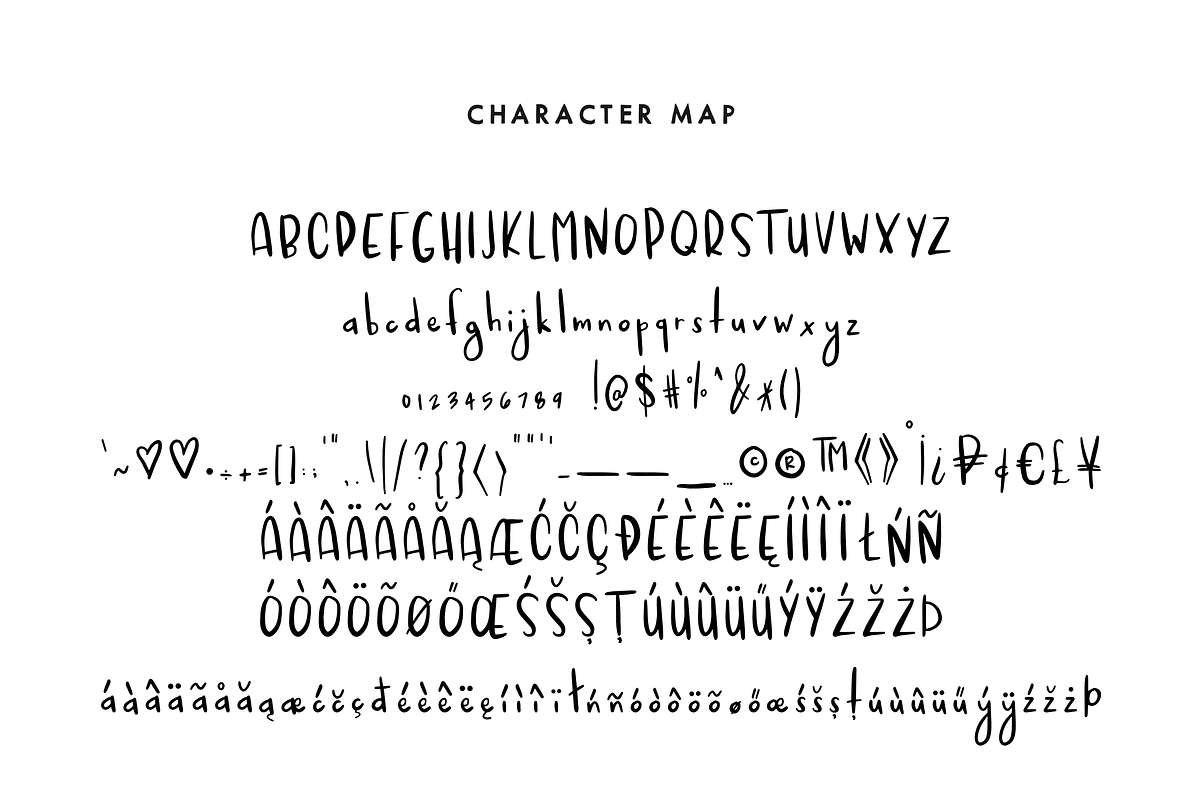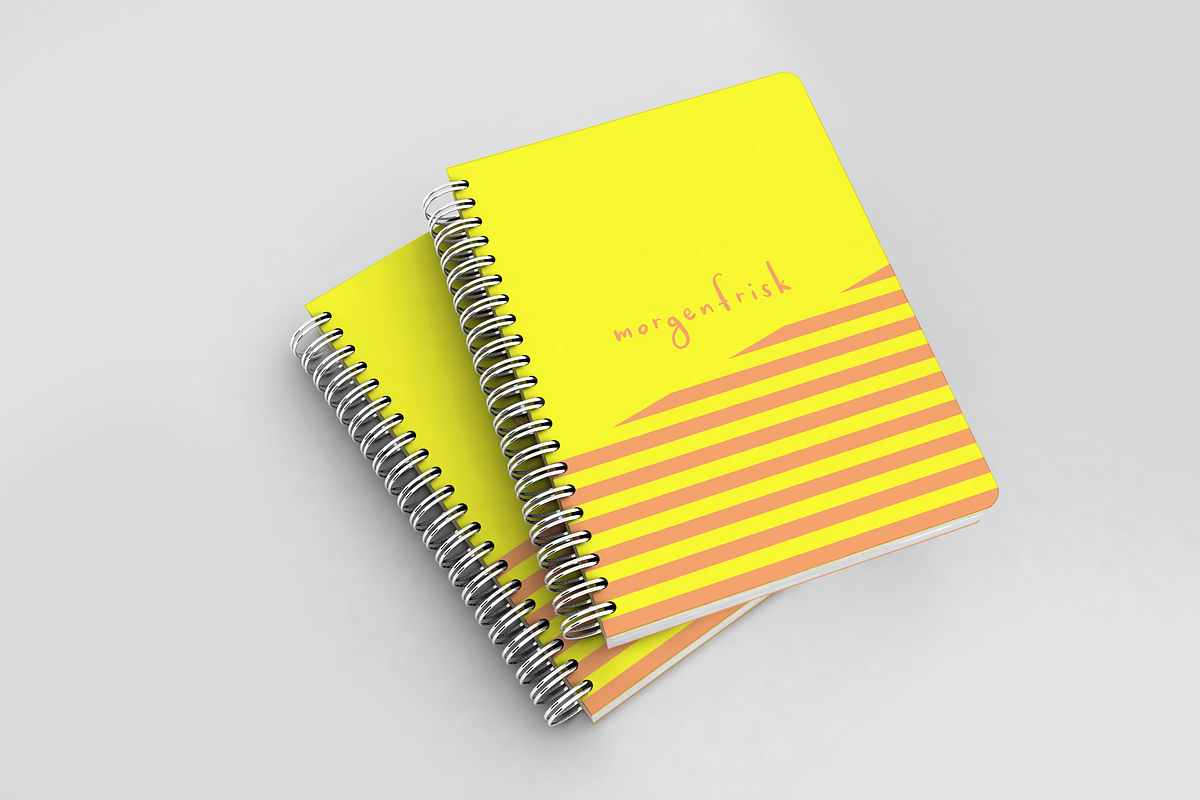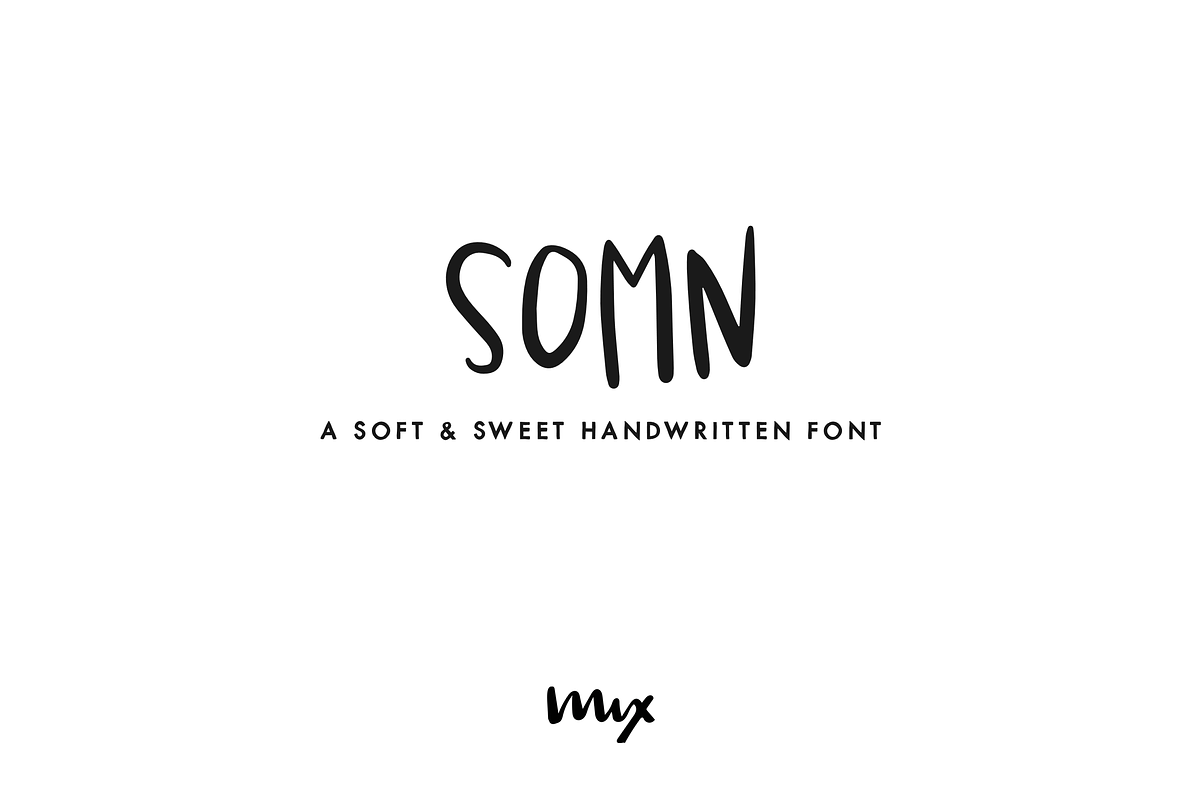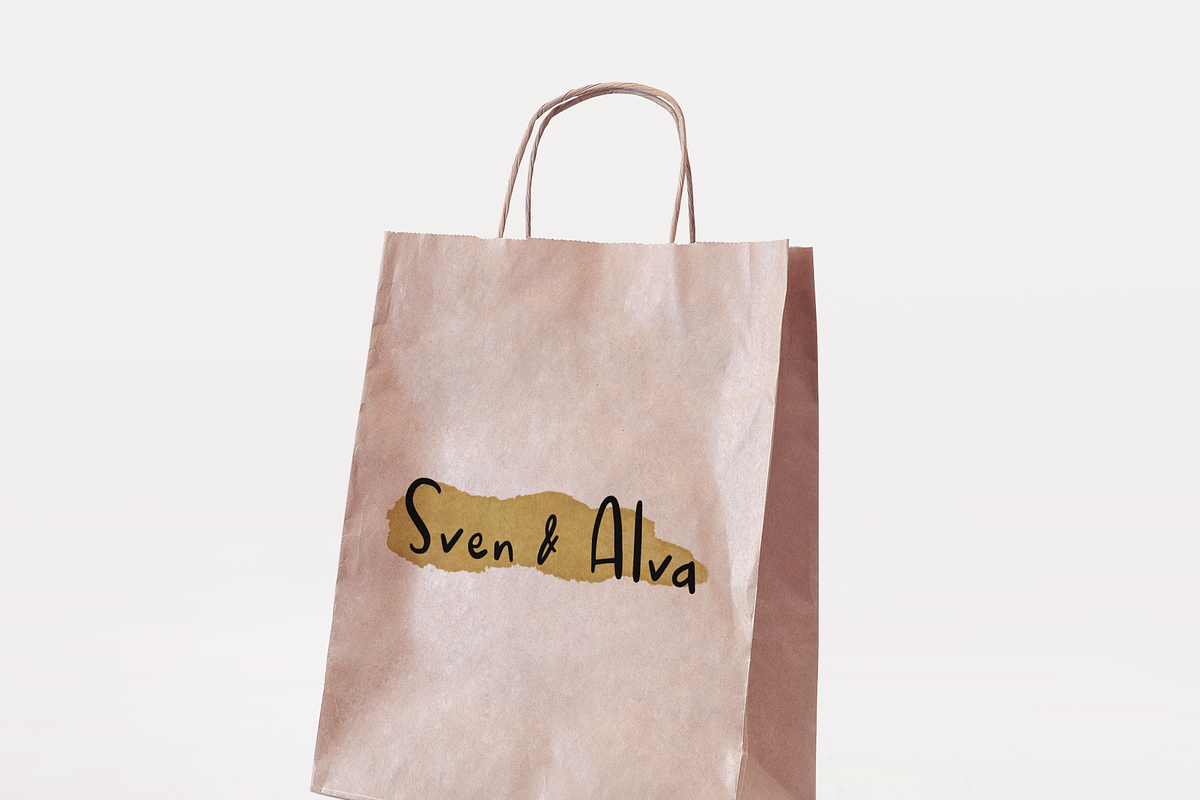
Somn — A Soft & Sweet Sans Serif
MIX SOMNis the perfect font for adding charm to your children's products. Its thin, tall, and dainty style is both stylish and legible, making it perfect for labeling baby clothes, toys, and other items. The digitally handwritten sans serif font was created with an iPad Pro and Apple Pencil, using the Poppy Brush from myProcreate Brush Bundle. Its delicate strokes and sweet, soft appearance make it the perfect choice for any project you might find in your little bundle of joy's nursery.